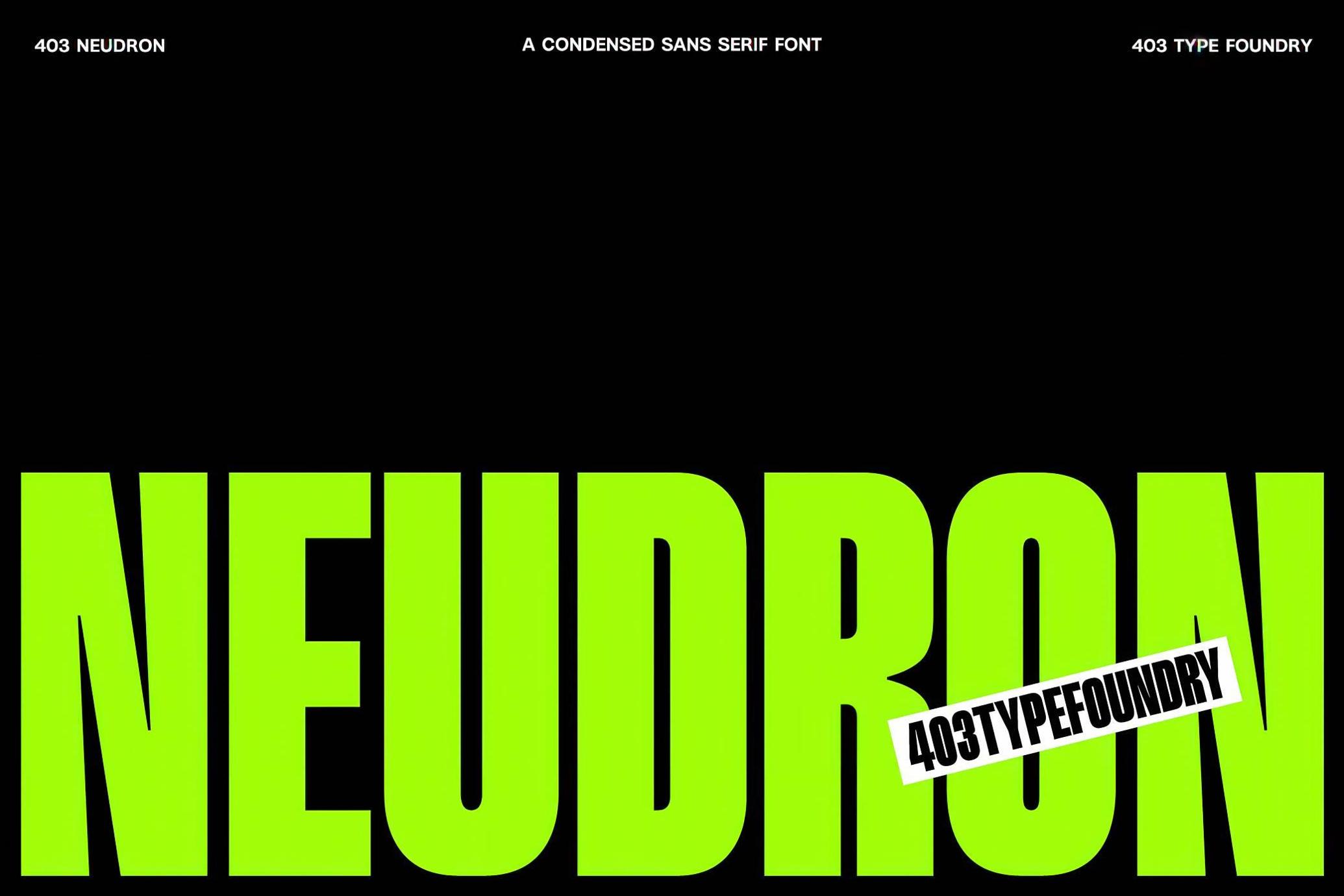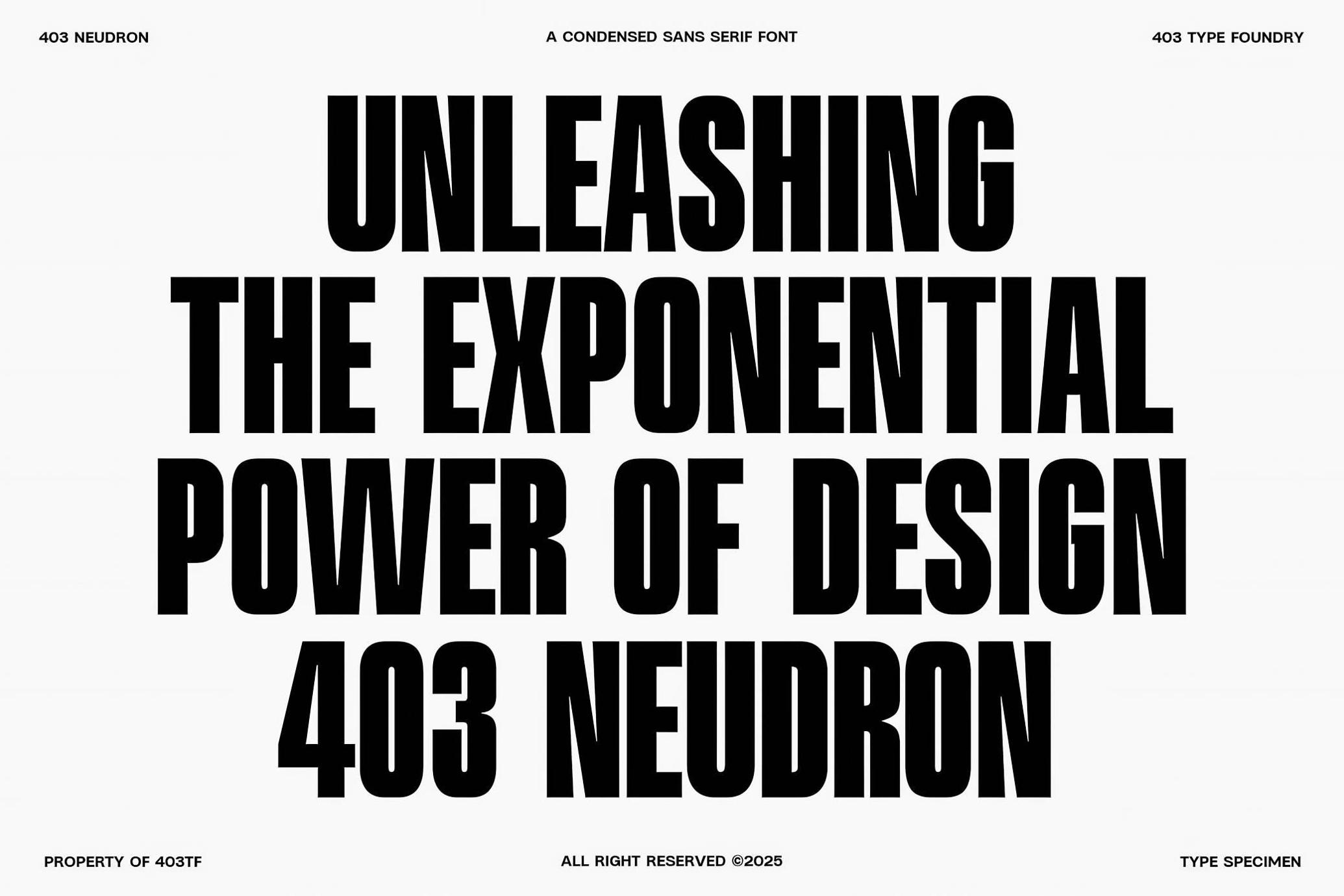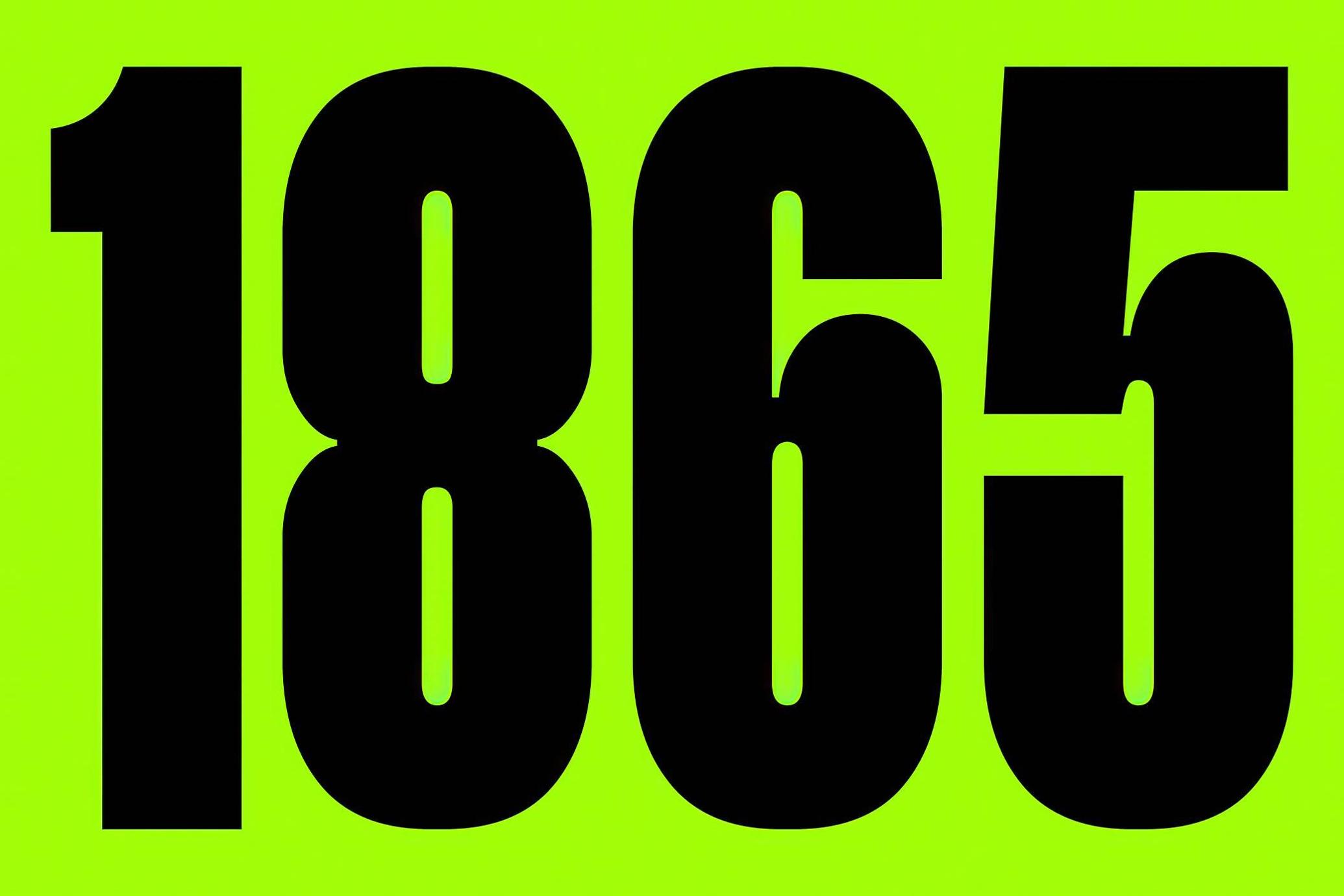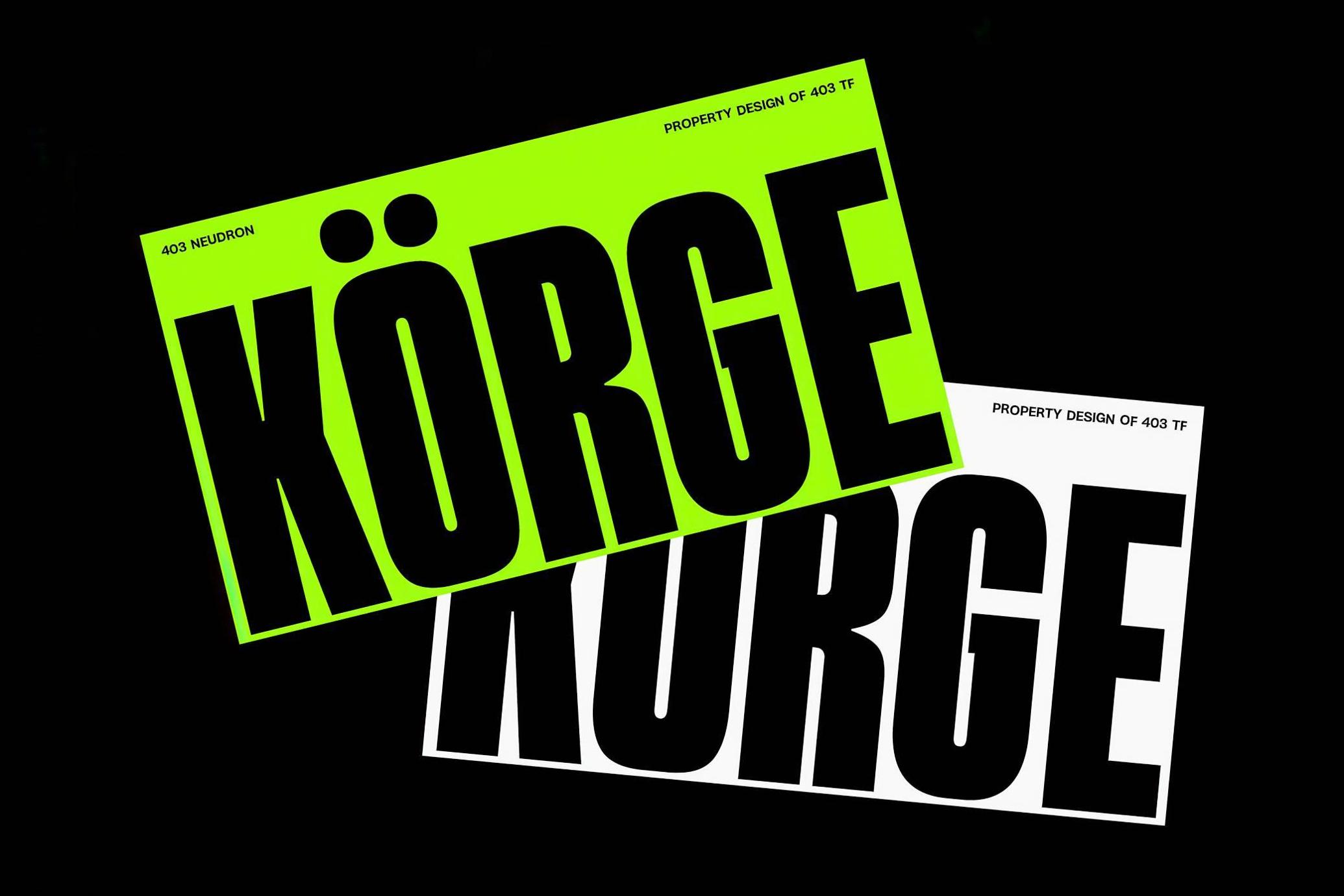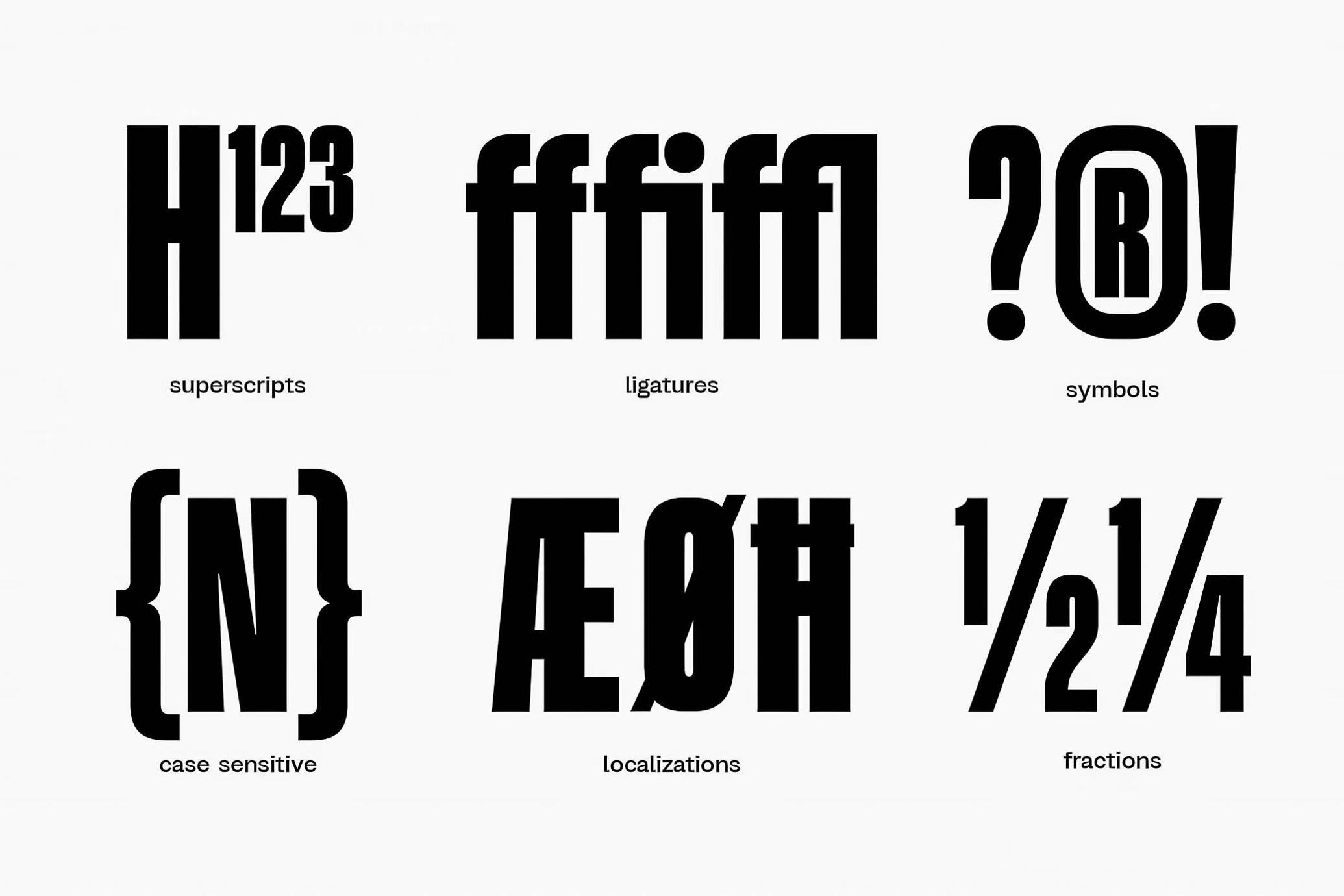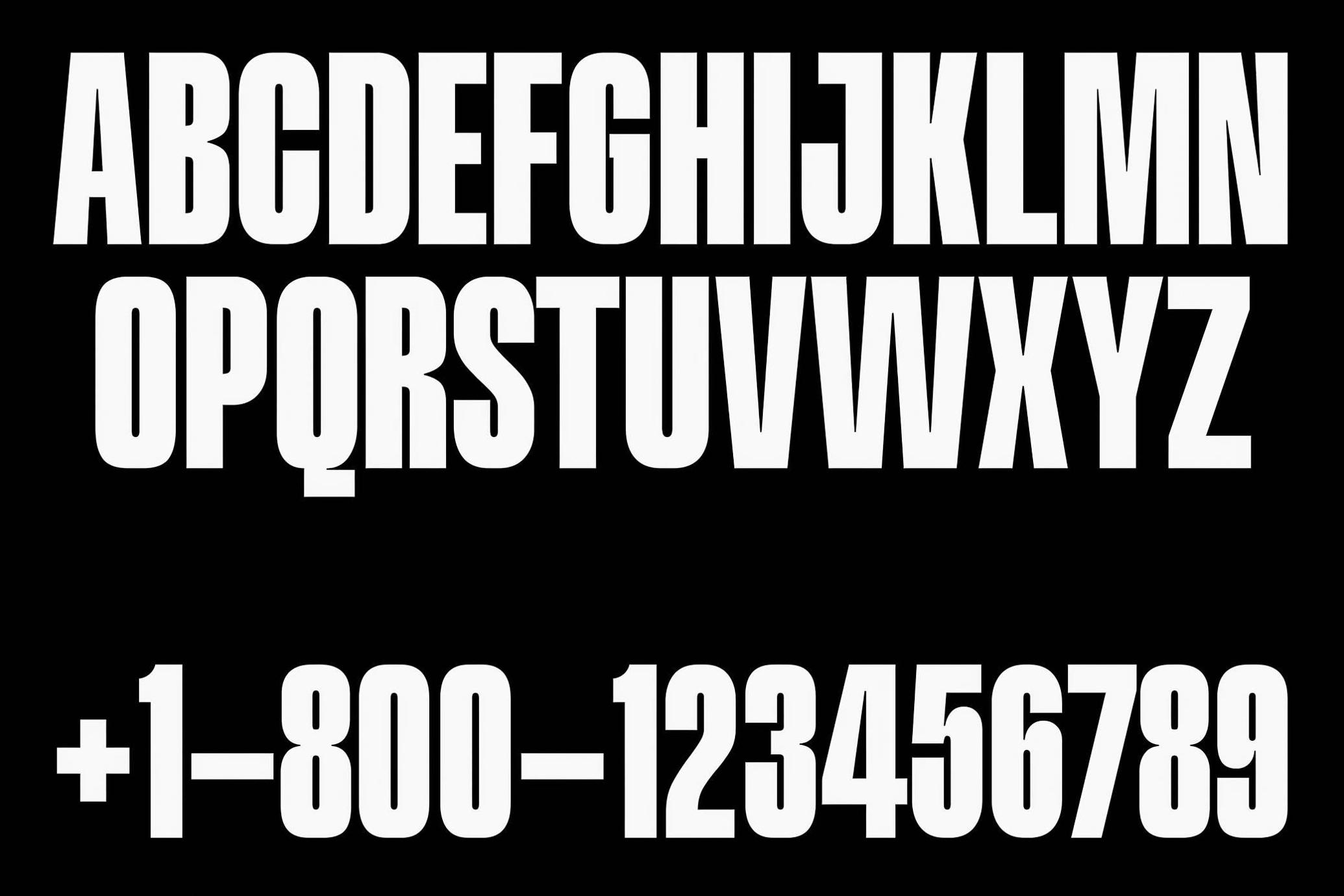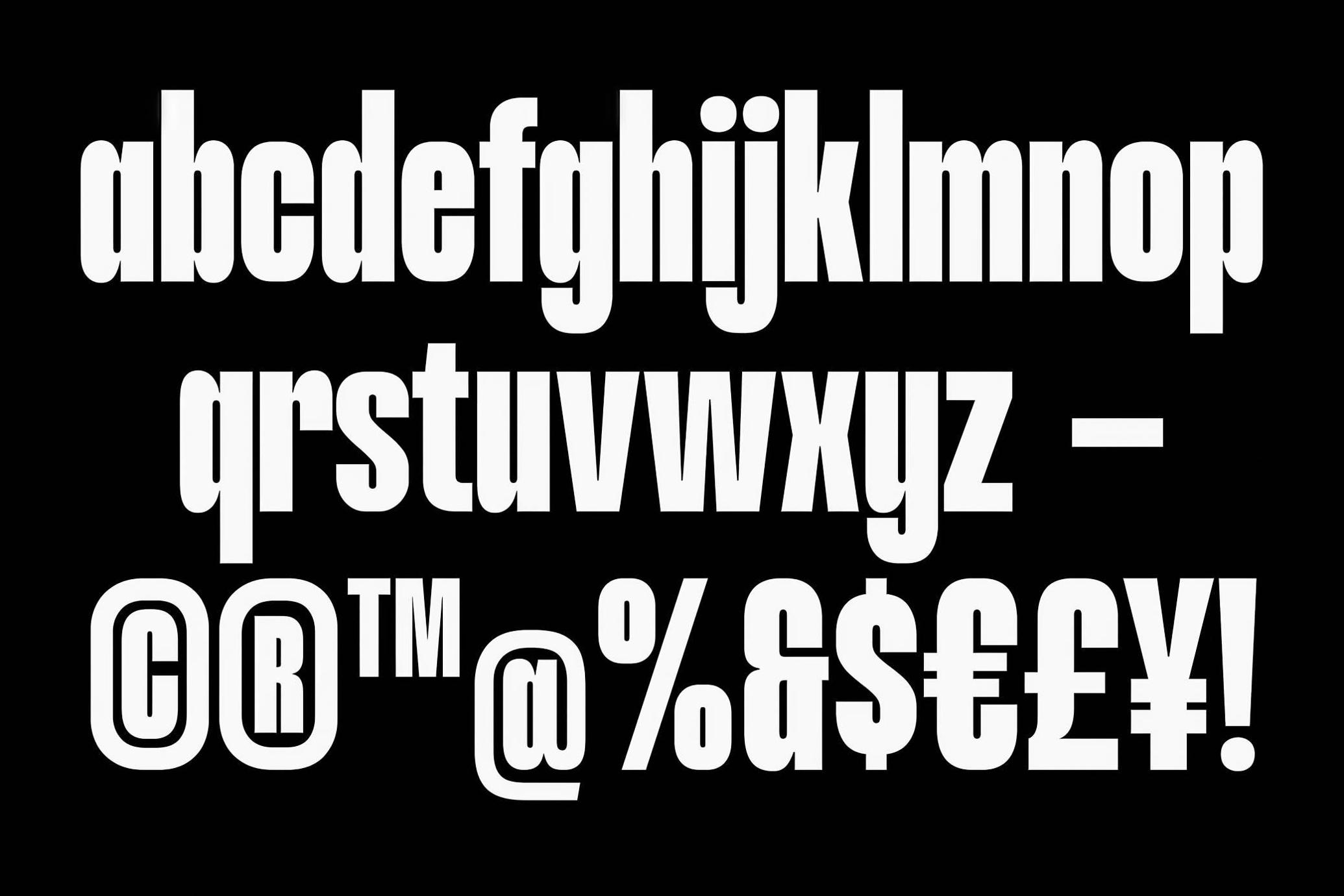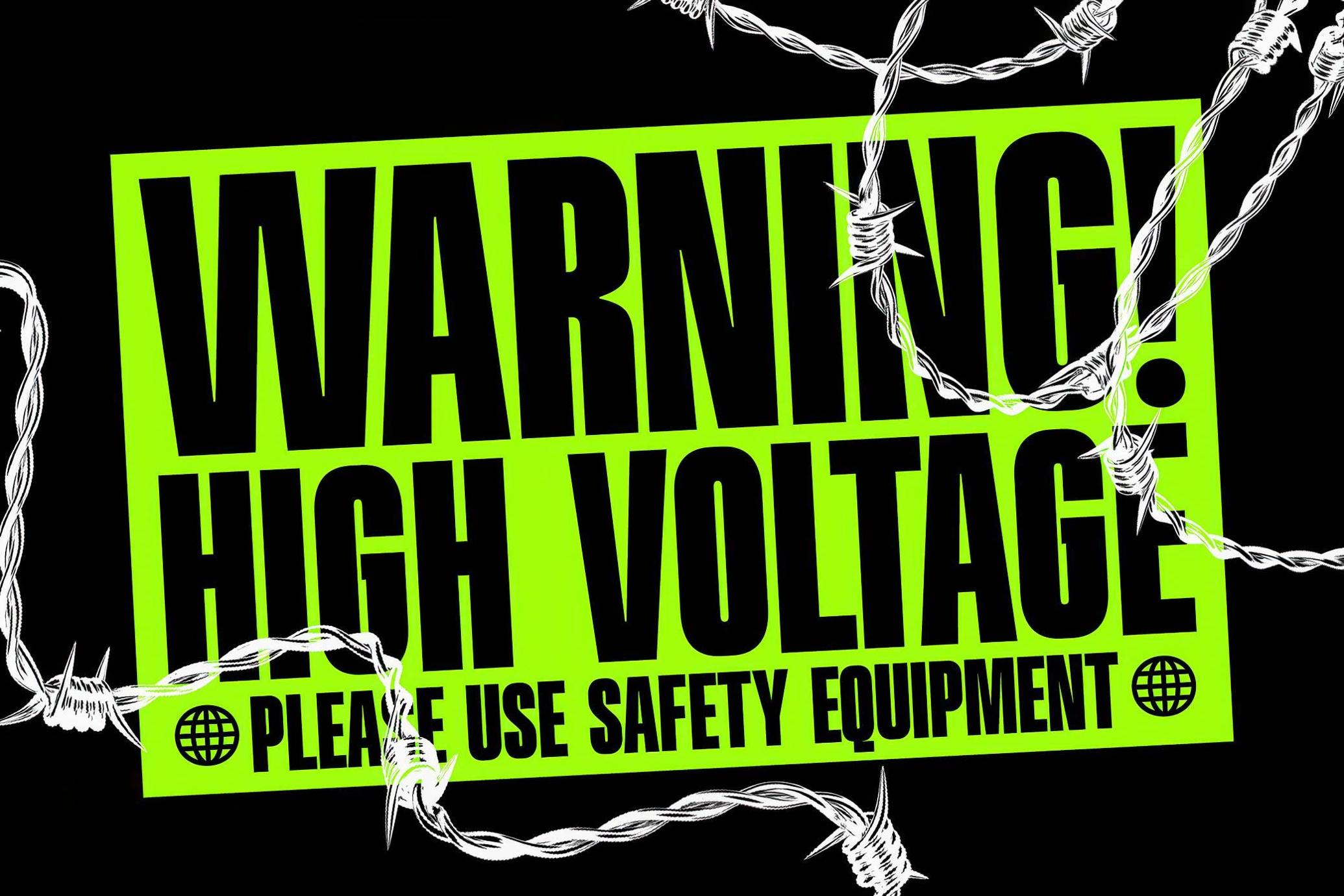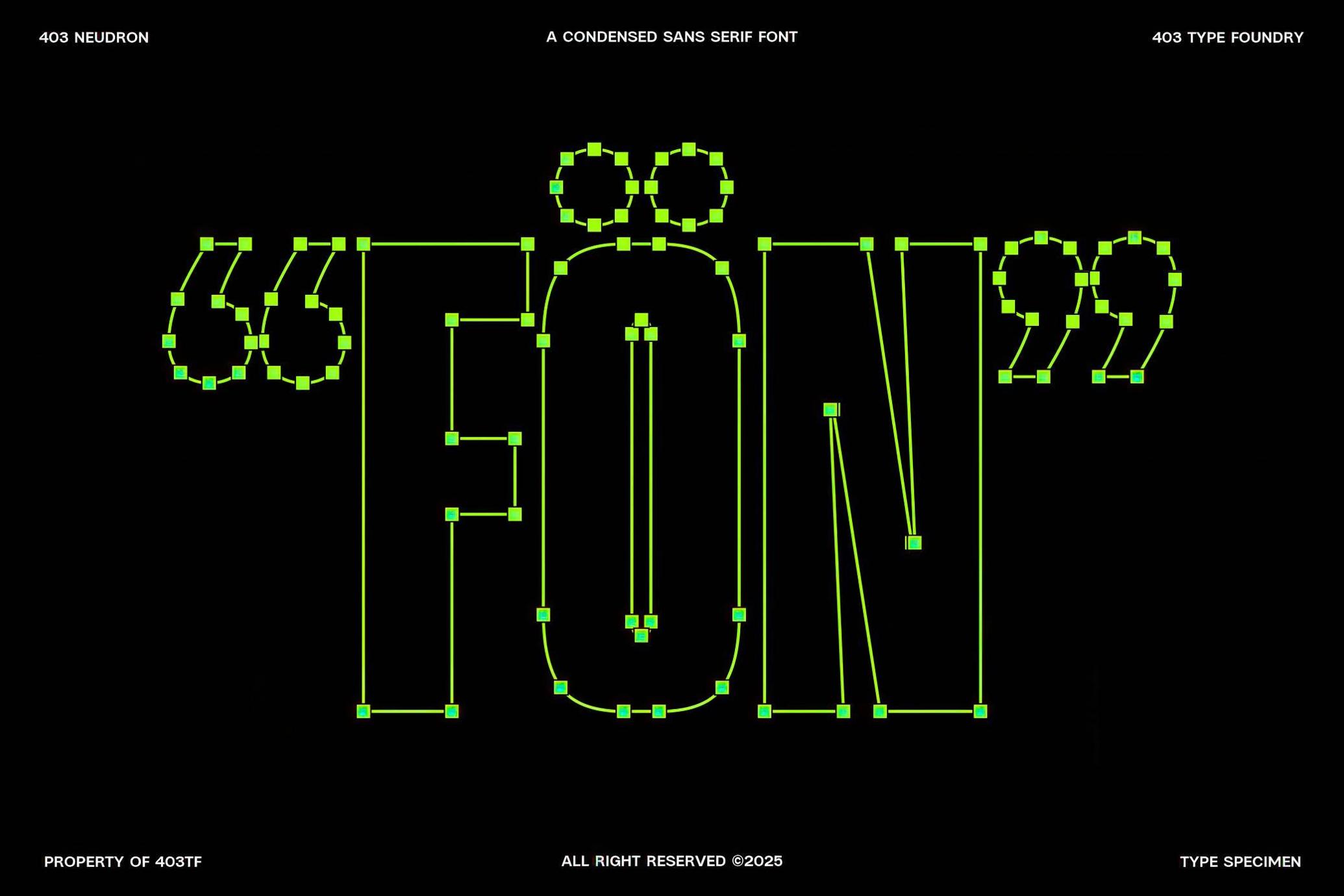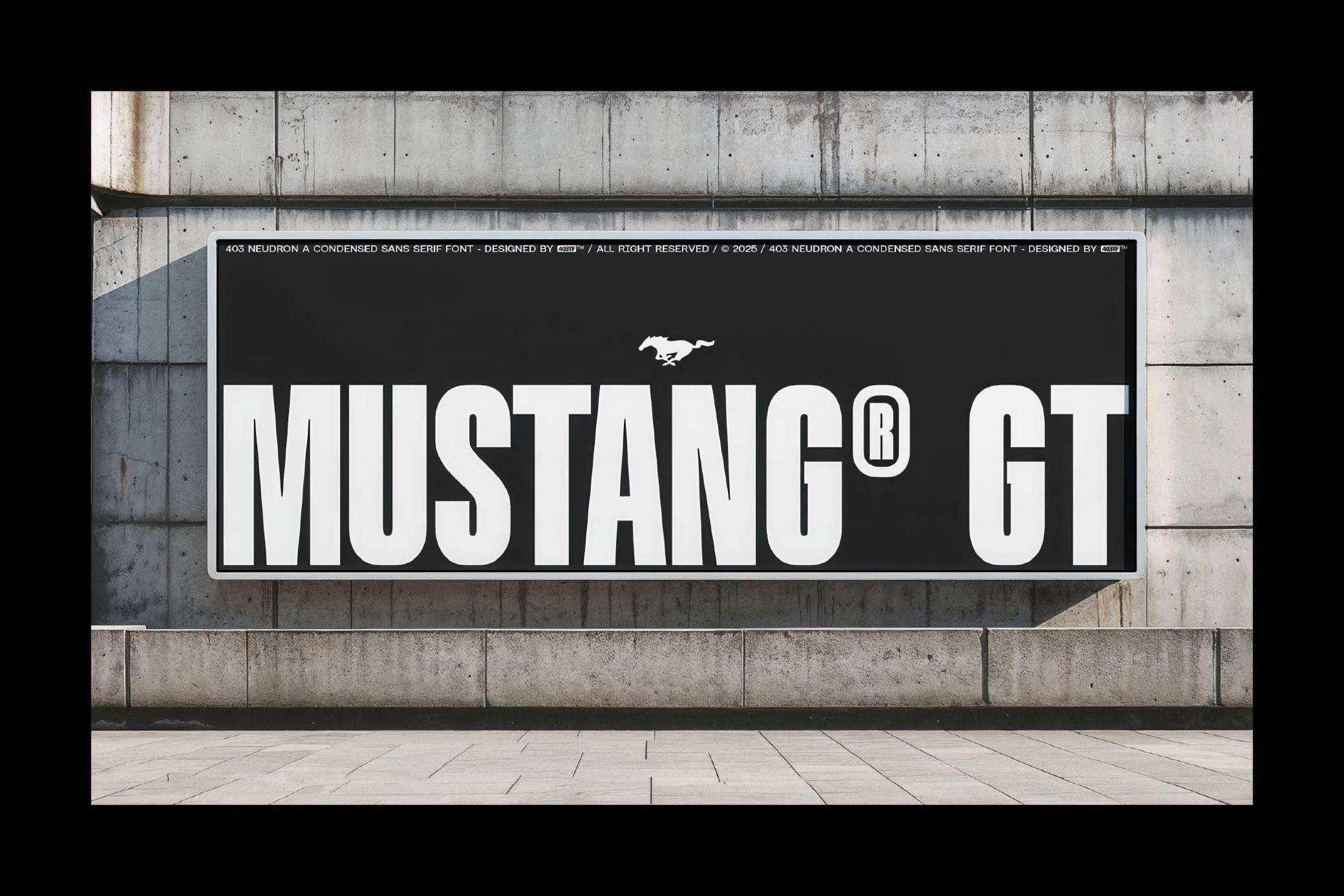
403 Neudron — Condensed Sans Serif Font
403 Neudron is a sculpted for bold headlines, editorial layouts, and branding. In case you’re up to a brutalist poster, an assertive sports identity, or sleek UI text, Neudron’s compressed confidence and assertive legibility bring authority to the project. In addition to the standard set of glyphs — upper & lower case, numerals, punctuation, and multilingual — it comes loaded with superscripts, discretionary ligatures, case-sensitive forms, localized glyphs, symbols, and fractions — because if you're going to shout, do shout with typographic precision.